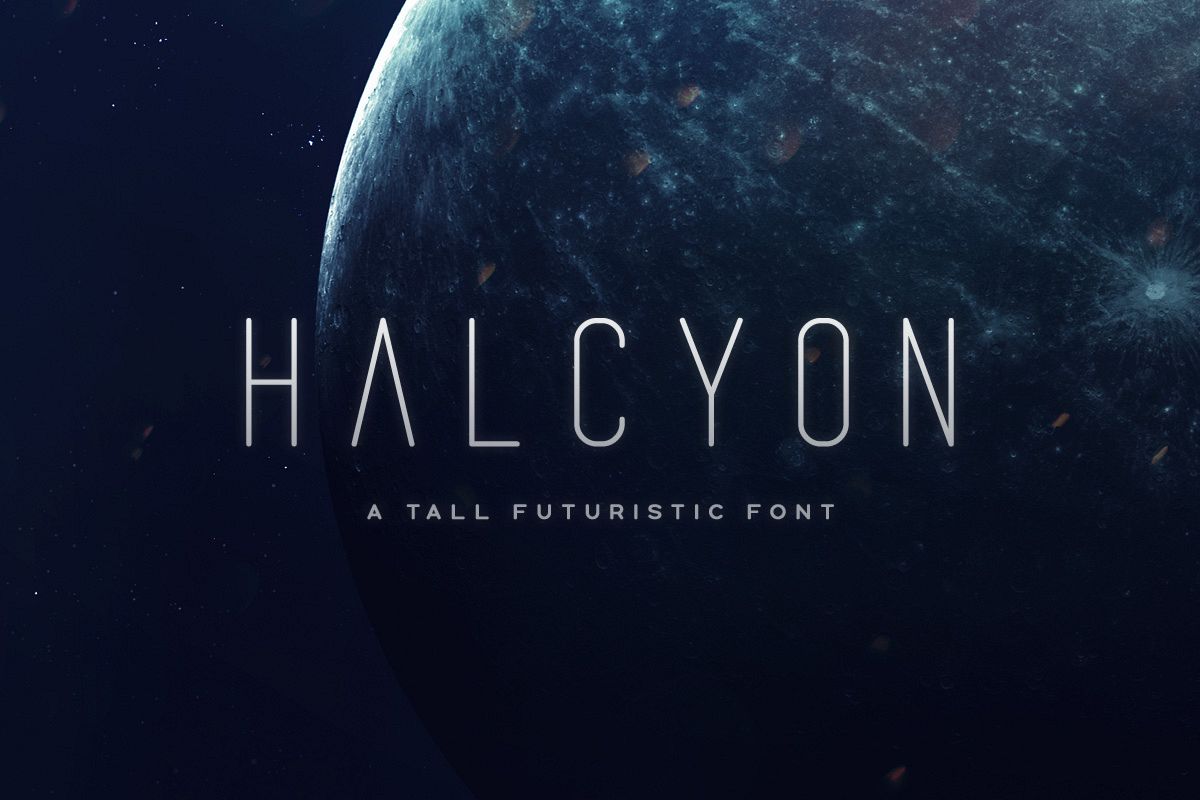
Halcyon Typeface
Halcyon Regular
Halcyon Thin
Halcyon is a tall, rounded futuristic typeface that comes in two weights. The alternate letters can be toggled via Caps Lock.